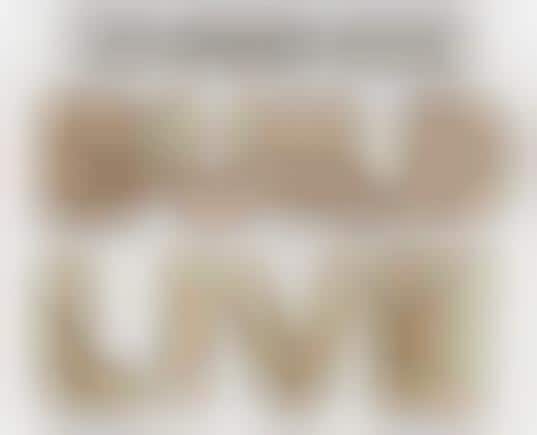
In a creative and artistic move, the New York Times has commissioned artist Gyongy Laky to sculpt custom-made fonts and graphics for its pre-Earth Day Green Issue. The fonts are made from various earth-material such as coal and wood, demonstrating that the medium is the message.
Implications - The rise of environmentalism has pervaded every industry and niche, and savvy marketers and ad agencies are tapping into this phenomenon by creating "green" ads using recycled, sustainable or repurposed materials. In this example, artist Gyongy Laky created a font with coal and wood to demonstrate the New York Times' eco-friendly message for its Green issue. Companies can take advantage of this opportunity by adopting similar "green" mediums.
Eco-Friendly Fonts
New York Times Green Issue